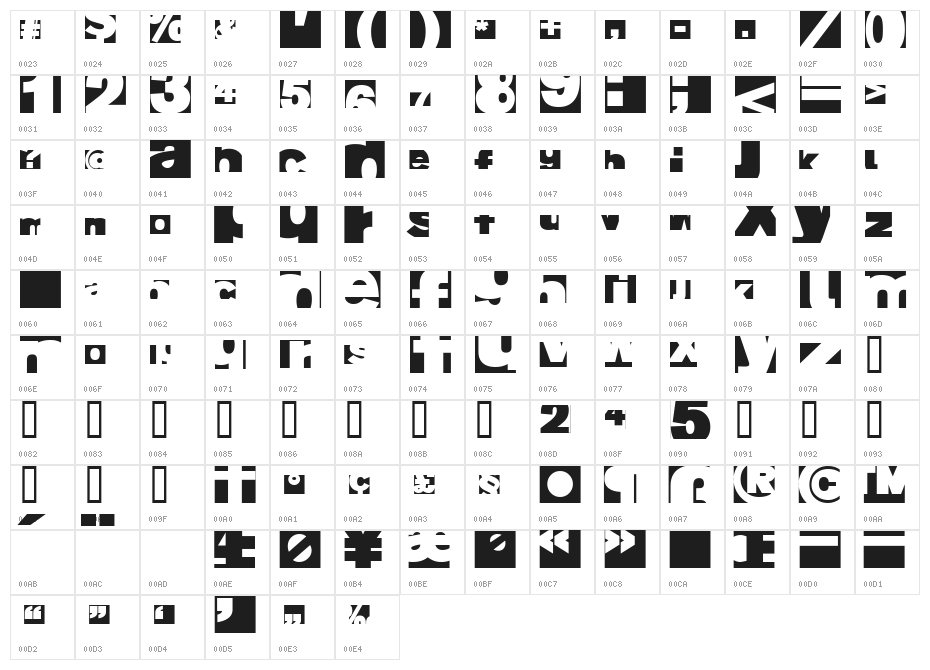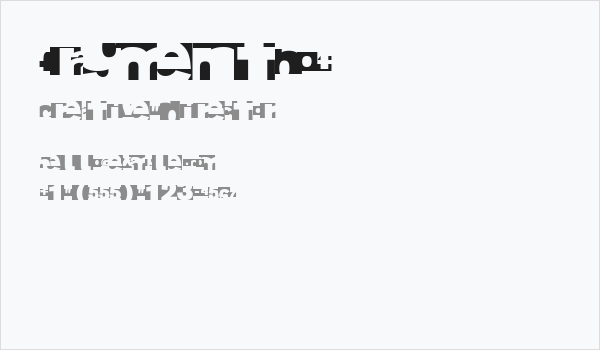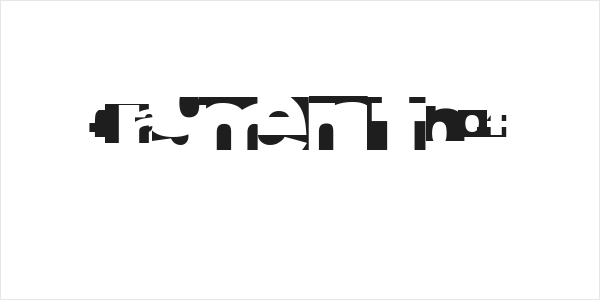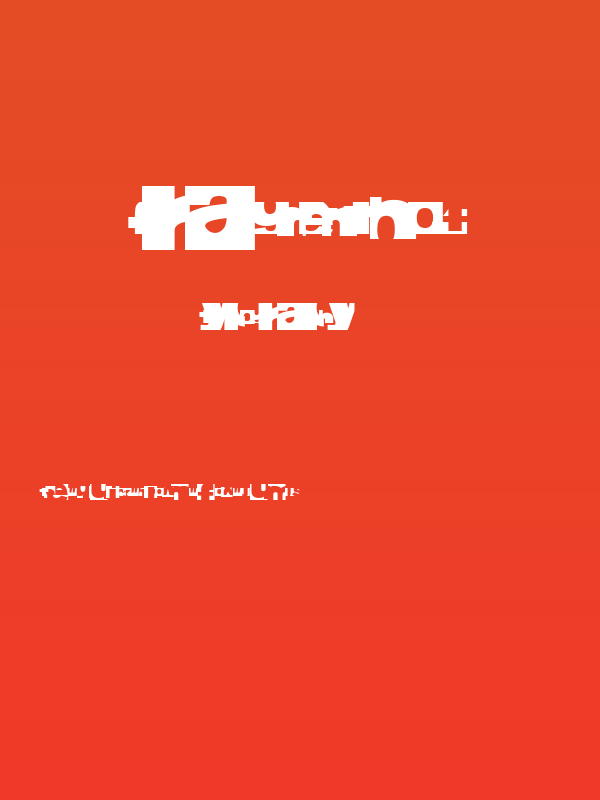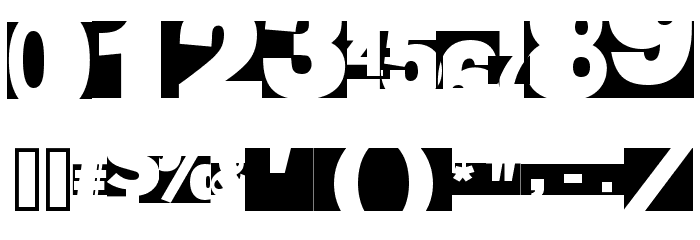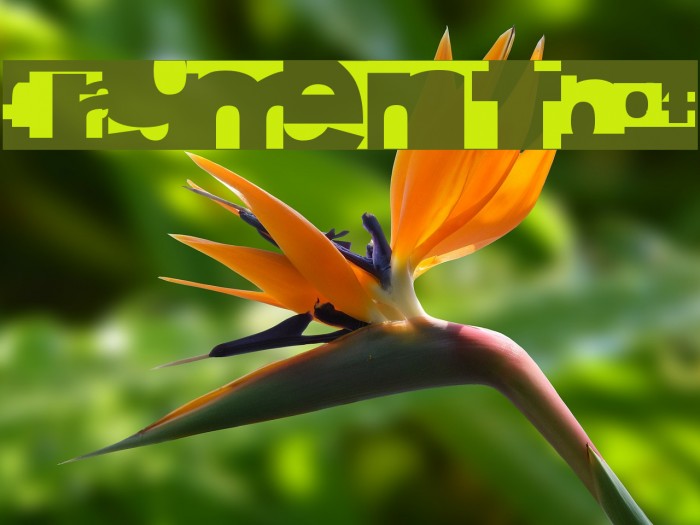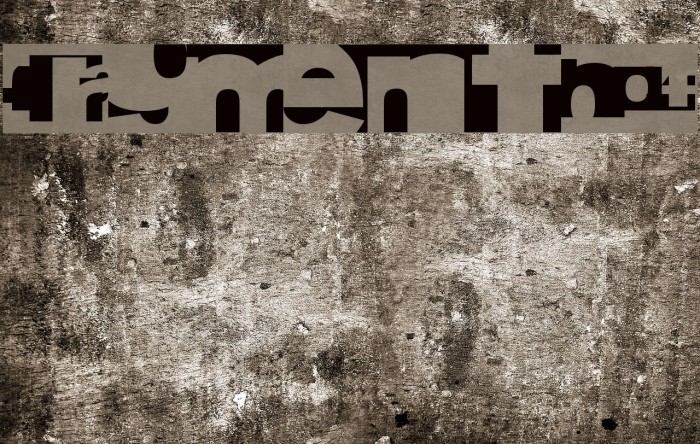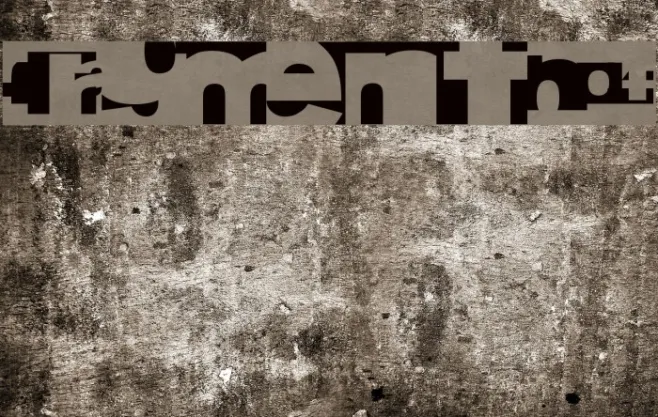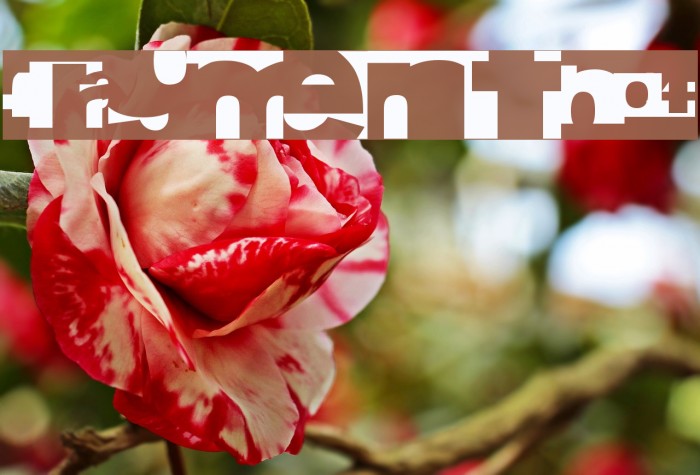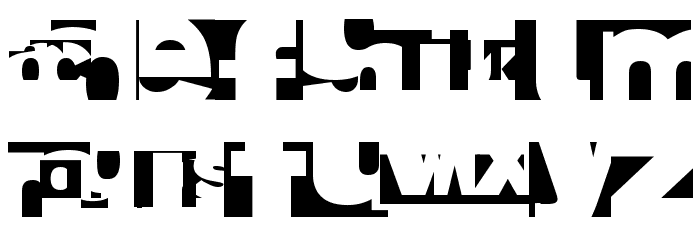
FragmentBO4 Font
FragmentBO4 Description
This font features a bold and striking design with thick, heavy strokes that create a powerful visual impact. The characters are wide and expansive, with a strong presence that commands attention. The uppercase letters are particularly prominent, with sharp angles and a geometric influence that adds a modern touch. The lowercase letters maintain a consistent weight, contributing to the overall boldness of the font. The numerals are equally robust, ensuring readability and consistency across different uses. Special characters are designed to match the bold style, making this font suitable for a variety of applications where a strong, impactful typeface is required.
| Proposed Projects | Ideal for headlines, posters, branding, and any project requiring a strong visual impact. |